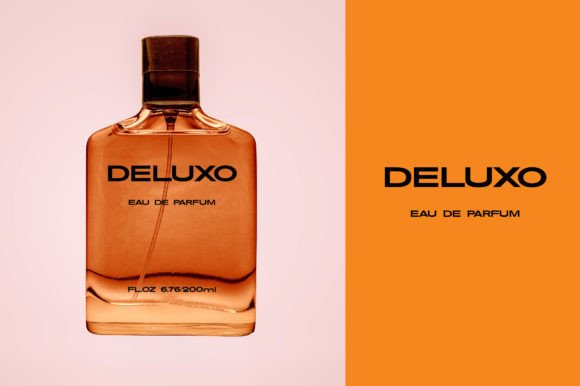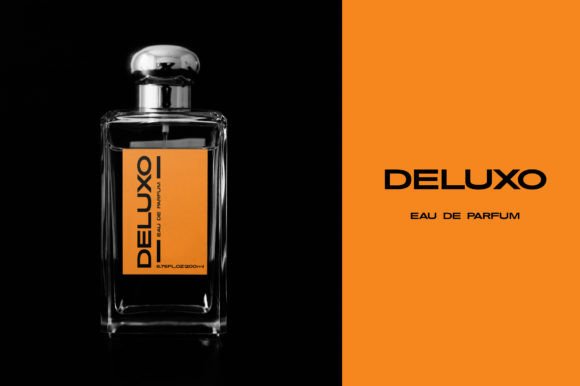
The Deluxo Font: A Modern Sans Serif Game-Changer
I’ll never forget the design project that led me to discover the Deluxo font. I was working on a sleek, modern branding campaign for a trendy new coffee shop, and I was struggling to find the perfect font to capture their fresh and vibrant vibe. That’s when I stumbled upon Deluxo, and it instantly became my go-to choice. In this article, I’ll share my experience with Deluxo, its features, and how to make the most of it in your designs.
An Honest Review of Deluxo
So, what makes Deluxo special? Here are some things I love about this font:
- ✨ Clean and modern design: Deluxo’s sans serif style is perfect for projects that require a fresh and contemporary look.
- ✅ Highly legible: The font’s clear and simple design makes it easy to read, even at small sizes.
- 💡 Versatile: Deluxo works well for both digital and print projects, from social media graphics to business cards and brochures.
While Deluxo is an excellent font, it’s not perfect. Here are a few quirks to keep in mind:
- 🤔 Limited character set: Deluxo doesn’t include an extensive range of characters, so it might not be the best choice for projects that require complex typography.
- ⚠️ Not ideal for body text: While Deluxo is legible, it’s not designed for long-form reading. It’s best used for headings, titles, and short paragraphs.
- Experiment with Deluxo’s OpenType features, such as stylistic alternates and glyphs, to add visual interest to your design.
The Story Behind Deluxo
Deluxo was designed by a team of typographers who wanted to create a modern sans serif font that would meet the needs of contemporary designers. Inspired by the clean lines and simplicity of urban landscapes, Deluxo is a font that’s both stylish and functional.
| Is Deluxo suitable for body text? | While Deluxo is legible, it’s not designed for long-form reading. It’s best used for headings, titles, and short paragraphs. |
| Can I use Deluxo for digital and print projects? | Yes, Deluxo works well for both digital and print projects. However, make sure to check the font’s legibility and adjust the size and line height accordingly. |
| Does Deluxo include OpenType features? | Yes, Deluxo includes a range of OpenType features, including stylistic alternates and glyphs. Experiment with these features to add visual interest to your design. |